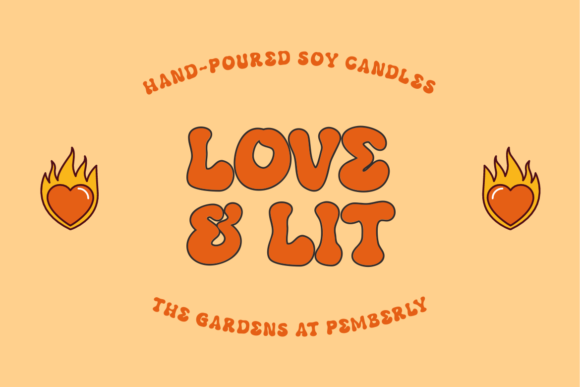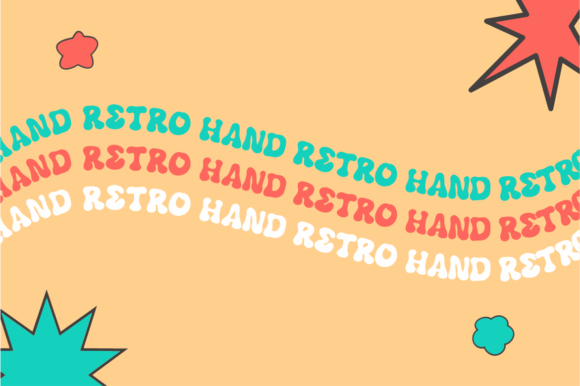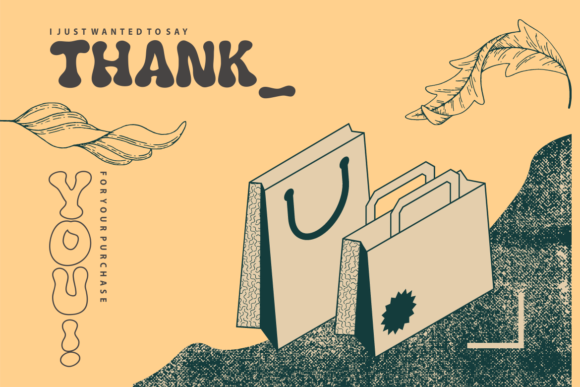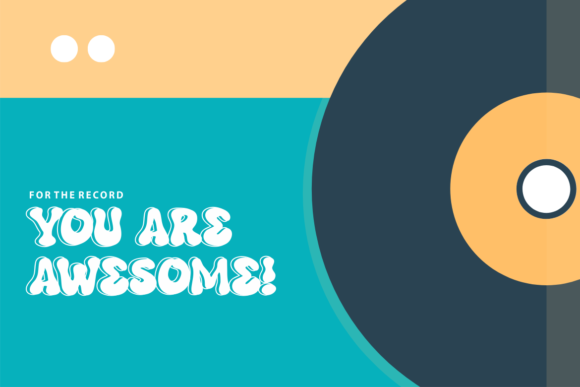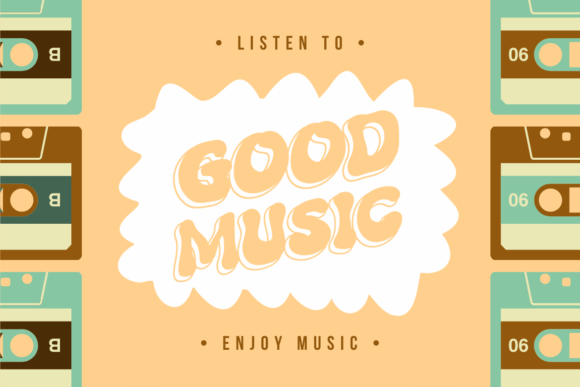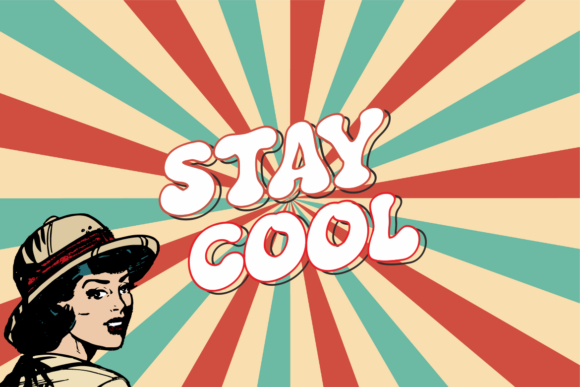
Introducing Hand Retro Font: Elevate Your Designs with a Touch of Nostalgia
Are you on the hunt for a font that can add a dash of playfulness and sophistication to your creative projects? Look no further than the Hand Retro Font! This versatile and stylish retro display font is perfect for a wide range of applications, from greeting cards and headlines to branding and packaging. With its exquisite feel and romantic undertones, Hand Retro Font is sure to captivate your audience and leave a lasting impression.
What Makes Hand Retro Font So Special?
Hand Retro Font is more than just a font – it’s an experience. Its unique blend of vintage charm and modern flair makes it the perfect addition to any design project. Here are just a few reasons why Hand Retro Font stands out from the crowd:
- Versatility: Hand Retro Font is designed to be versatile, making it suitable for a wide range of applications, from formal events to casual gatherings.
- Playful yet Sophisticated: This font strikes the perfect balance between playfulness and sophistication, making it ideal for designers who want to add a touch of whimsy to their work.
- PUA Encoded: Hand Retro Font is PUA encoded, which means you can access all of the amazing glyphs and ligatures with ease. This feature makes it easy to get creative and experiment with different design elements.
Use Cases for Hand Retro Font
Hand Retro Font is perfect for a variety of design projects, including:
- Greeting Cards: Add a touch of elegance and sophistication to your greeting cards with Hand Retro Font.
- Headlines: Make your headlines stand out with the bold, playful, and stylish look of Hand Retro Font.
- Branding and Packaging: Use Hand Retro Font to create unique and eye-catching branding and packaging designs that will set your products apart from the competition.
- Social Media Graphics: Add a touch of personality to your social media graphics with Hand Retro Font.
- Invitations: Create beautiful and elegant invitations with Hand Retro Font.
Why Designers and Crafters Love Hand Retro Font
Designers and crafters love Hand Retro Font for many reasons, including:
- High-Quality Design: The font is designed with high-quality and attention to detail, ensuring that it looks great in any design project.
- Unique and Exclusive: Hand Retro Font is a unique and exclusive font that will set your designs apart from the competition.
Tips and Tricks for Using Hand Retro Font
Here are a few tips and tricks for getting the most out of Hand Retro Font:
- Experiment with Different Sizes: Hand Retro Font looks great in a variety of sizes, so don’t be afraid to experiment and find the perfect size for your design project.
- Pair it with Other Fonts: Hand Retro Font pairs well with other fonts, so try combining it with different fonts to create a unique and interesting look.
- Use it for Headlines and Titles: Hand Retro Font is perfect for headlines and titles, so use it to add a touch of elegance and sophistication to your design projects.
In conclusion, Hand Retro Font is a versatile, stylish, and playful retro display font that is perfect for a wide range of design projects. With its exquisite feel and romantic undertones, it’s sure to captivate your audience and leave a lasting impression. Whether you’re a designer or crafter, Hand Retro Font is a great addition to any creative project.